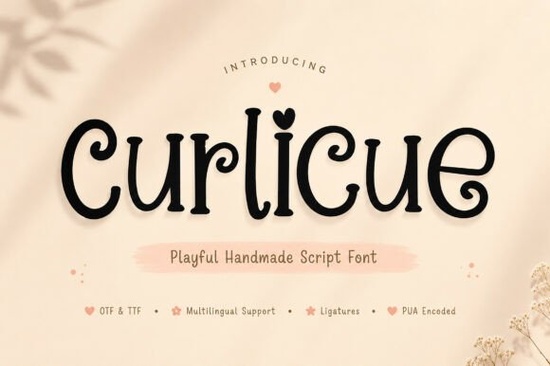
Curlicue Font is a handmade script typeface that brings a warm, playful, and slightly whimsical feel to any design. If you've been looking for a curly, hand-lettered font that feels personal and approachable, this one delivers exactly that. It's the kind of typeface that makes wedding invitations feel cozy, product labels feel friendly, and social media graphics feel fun without trying too hard. Below, I'll walk you through what makes this font worth adding to your collection and how to actually use it in real projects.
What Makes Curlicue Font Stand Out?
There are thousands of script fonts available, so why consider this one? The answer is in the details. Curlicue's letterforms have soft curls, playful loops, and organic strokes that mimic real hand-lettering. It doesn't look stiff or overly polished and that's the point. The slight imperfections give it authenticity, which is exactly what modern design tends to favor.
It also includes unique ligatures and alternate characters, which means you can swap out certain letters to avoid repetition. This is a big deal if you're creating logos, headers, or branding materials where you want every word to look naturally handcrafted rather than typed out.
Who Is This Font Best For?
Curlicue works well for a wide range of creatives. Here's a quick breakdown:
- Print-on-demand sellers who need charming typography for mugs, tote bags, and apparel designs
- Small business owners creating packaging, thank-you cards, or brand identities
- Wedding and event stationers designing invitations, menus, and signage
- Social media managers looking for a friendly, eye-catching typeface for posts and stories
- Crafters and hobbyists working on stickers, scrapbooking, or Cricut projects
If you regularly design things that need to feel cute, personal, or hand-drawn, this font fills that role nicely.
What Projects Pair Well With a Curly Script Font?
Curlicue shines brightest in projects where warmth and personality matter. Think about designs where you'd naturally expect to see handwritten-style lettering:
- Greeting cards birthday cards, holiday cards, thank-you notes
- Product packaging especially for handmade goods, candles, soaps, or baked items
- Blog headers and Pinterest graphics where a friendly tone sets the mood
- Kids' party invitations and classroom materials
- Logo concepts for bakeries, boutiques, or lifestyle brands
It's worth noting that script fonts like Curlicue work best at larger sizes. For body text or small paragraphs, you'll want to pair it with a clean, readable typeface. If you need something more structured for contrast, a quality serif option can balance out the playful energy of a curly script.
How Does It Compare to Other Script Fonts?
There are plenty of handwritten and script fonts out there, each with its own personality. Some lean elegant, others lean casual. Curlicue sits in that sweet spot playful but not childish, charming but not messy. If you want something with a similar vibe but slightly different styling, fonts like a friendly script typeface or a flowing handwritten option are worth exploring.
For projects that call for something a little more romantic or delicate, a charming script font with ornate details might be a better fit. And if you're drawn to designs with a more artistic or expressive edge, an artistic display script offers a different creative direction altogether.
Ultimately, the best approach is to match the font's tone to the mood of your project. Curlicue's strength is its approachable, lighthearted character it's ideal when you want the design to feel like it was made with care.
Pairing Curlicue With Other Typefaces
One common question with decorative scripts is: what do I pair it with? Here are some practical combinations:
- Curlicue + a simple sans-serif great for modern, clean layouts
- Curlicue + a classic serif works well for elegant invitations or editorial designs
- Curlicue + a monospace font an unexpected pairing that creates visual interest
The key rule: keep the supporting font simple. Since Curlicue is decorative, the rest of your typography should stay quiet so it doesn't compete.